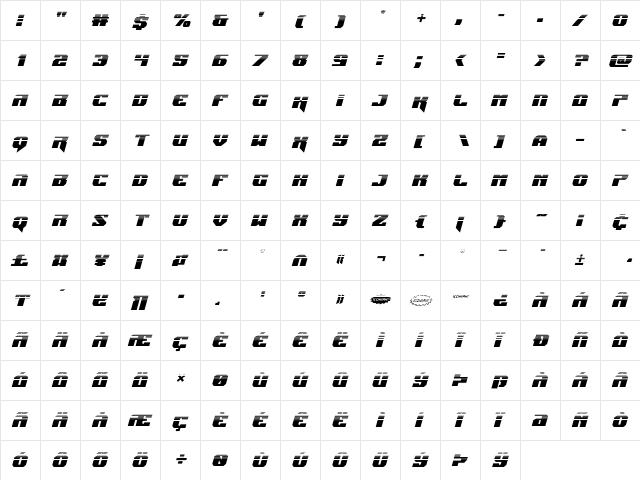
Jumpers Halftone Italic Italic
Design Context for Jumpers Halftone Italic Typeface
Jumpers Halftone Italic is a composed and adaptable typeface that performs quietly and consistently across a wide range of design contexts. The slanted form adds forward momentum and visual energy.
Pro Tip: Use Jumpers Halftone Italic for emphasis, pull quotes, and subheadings where its slanted energy can add rhythm to the layout.